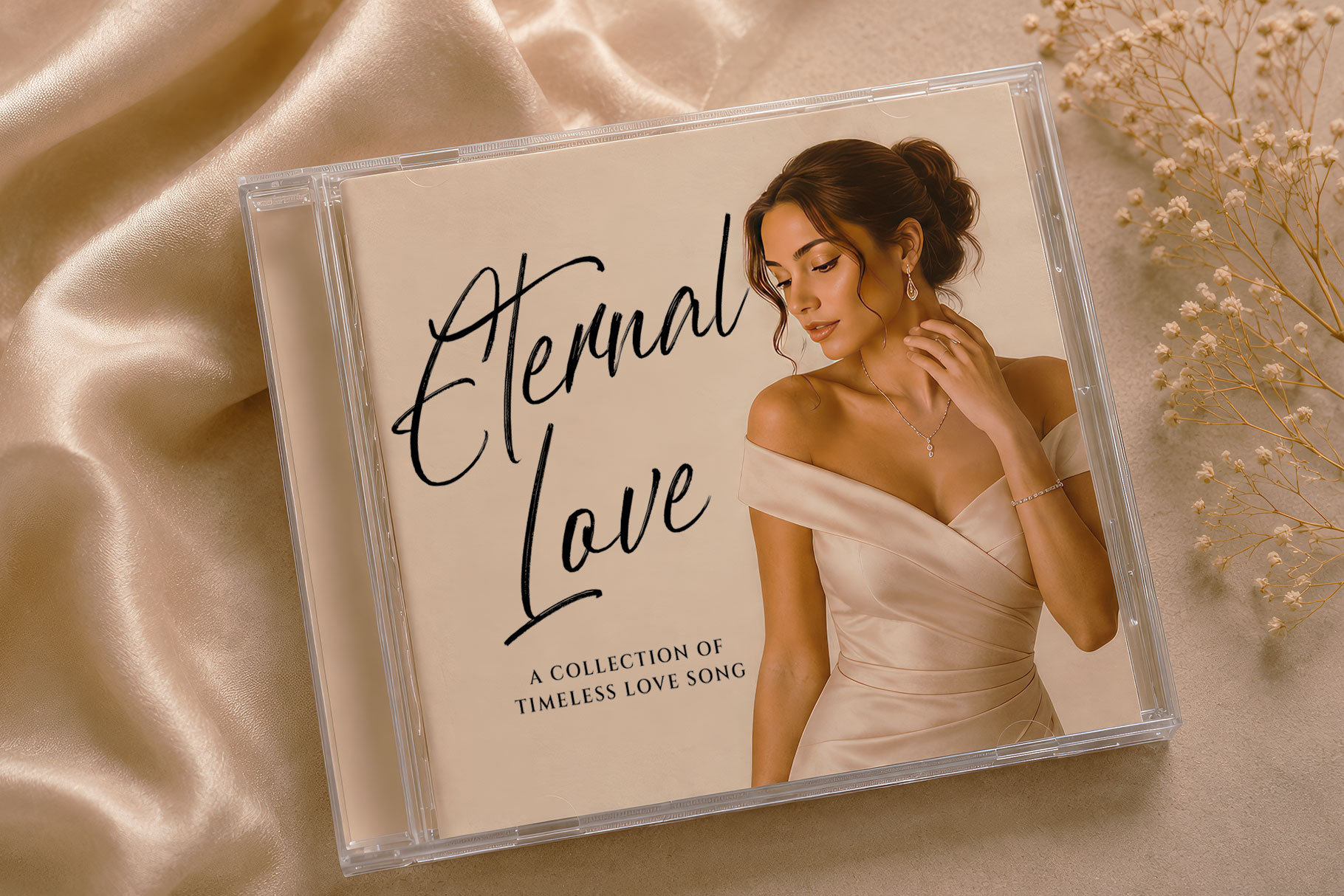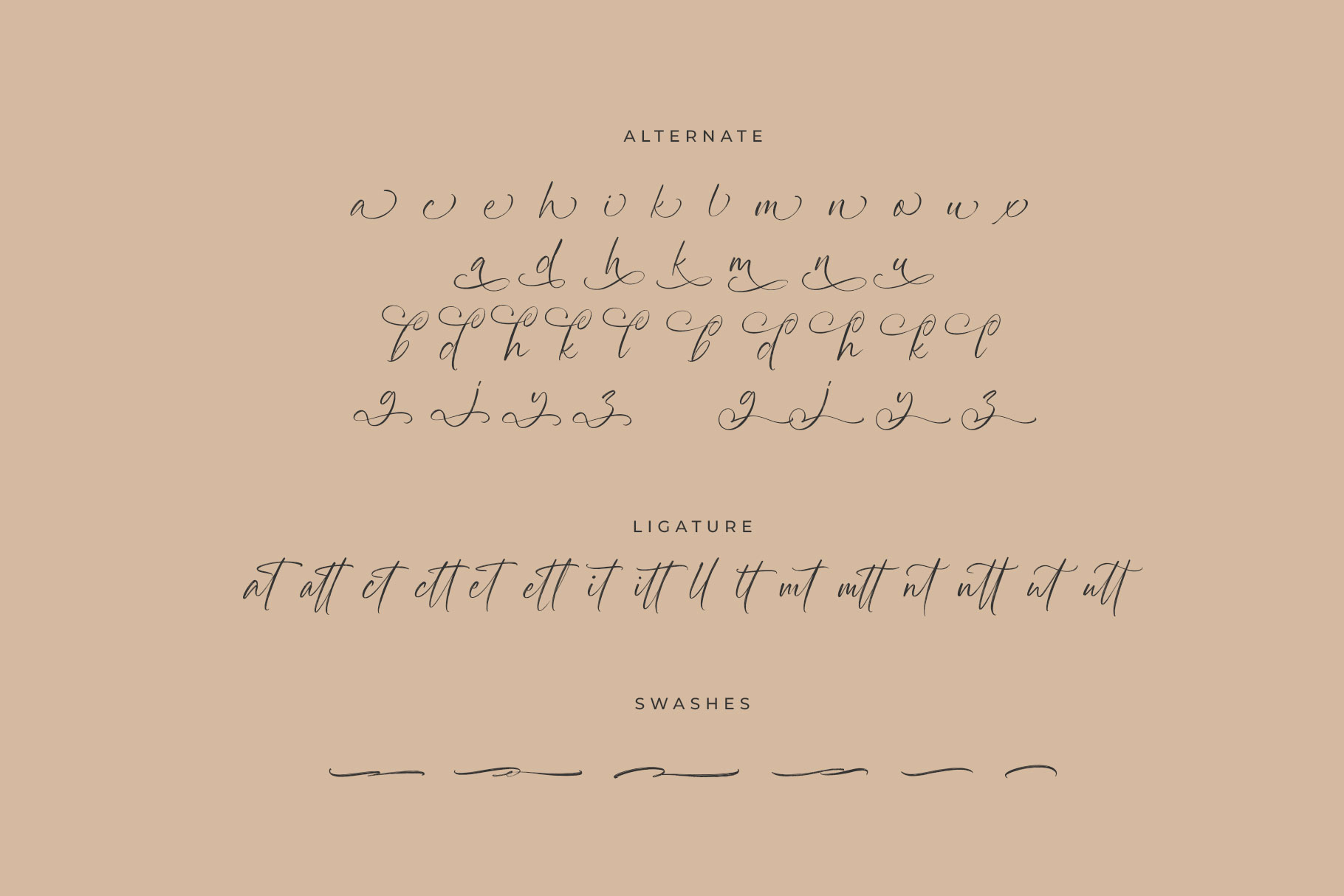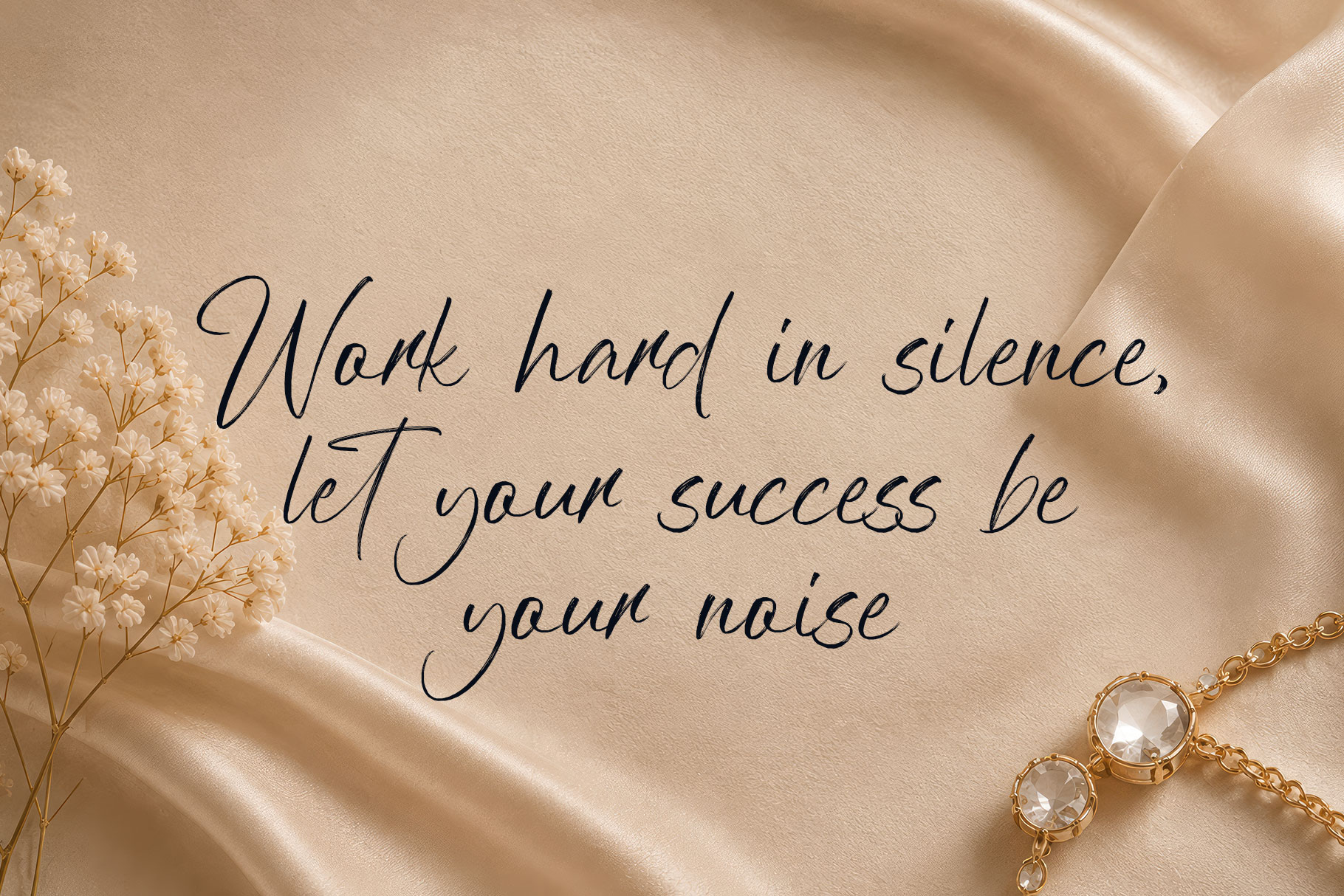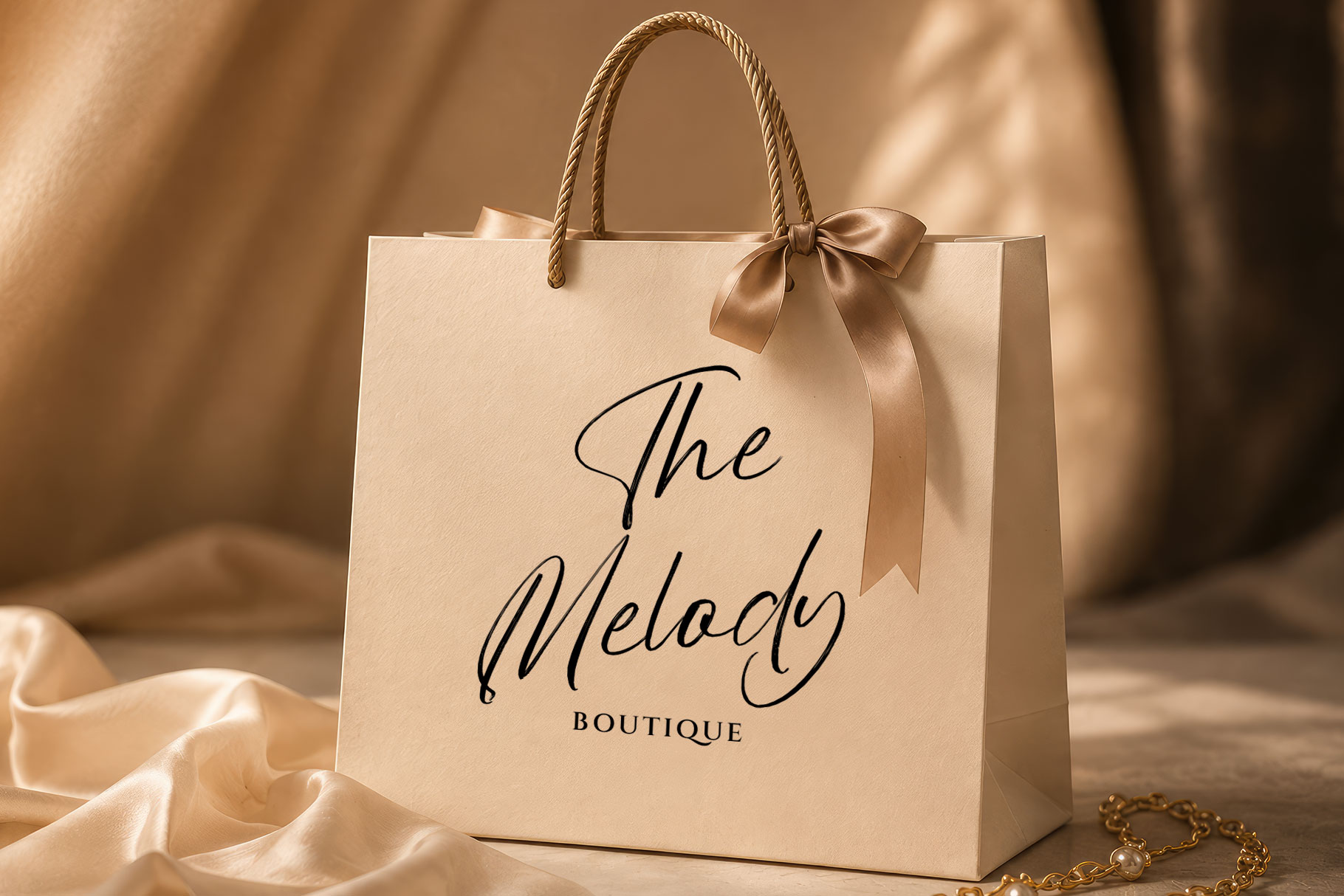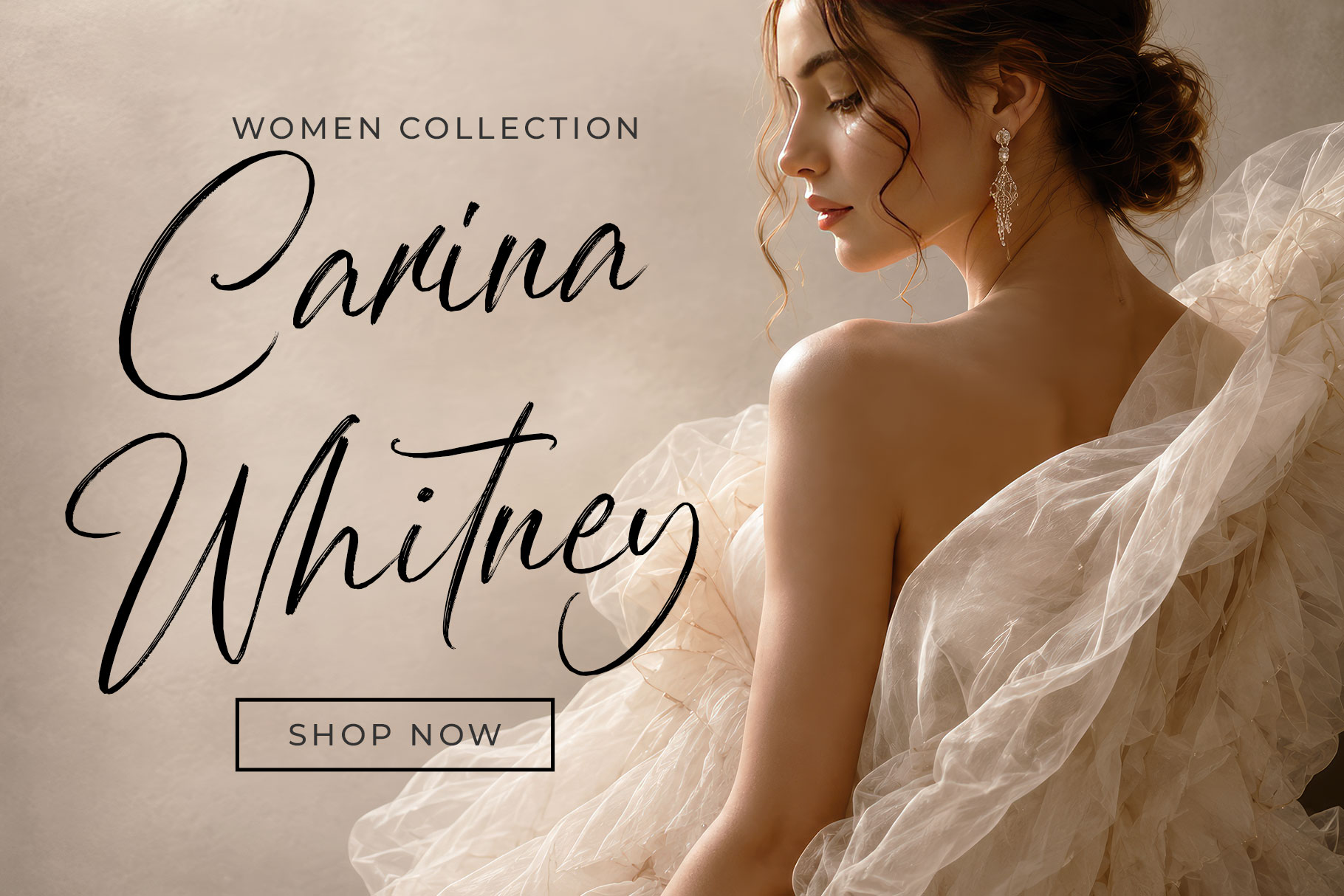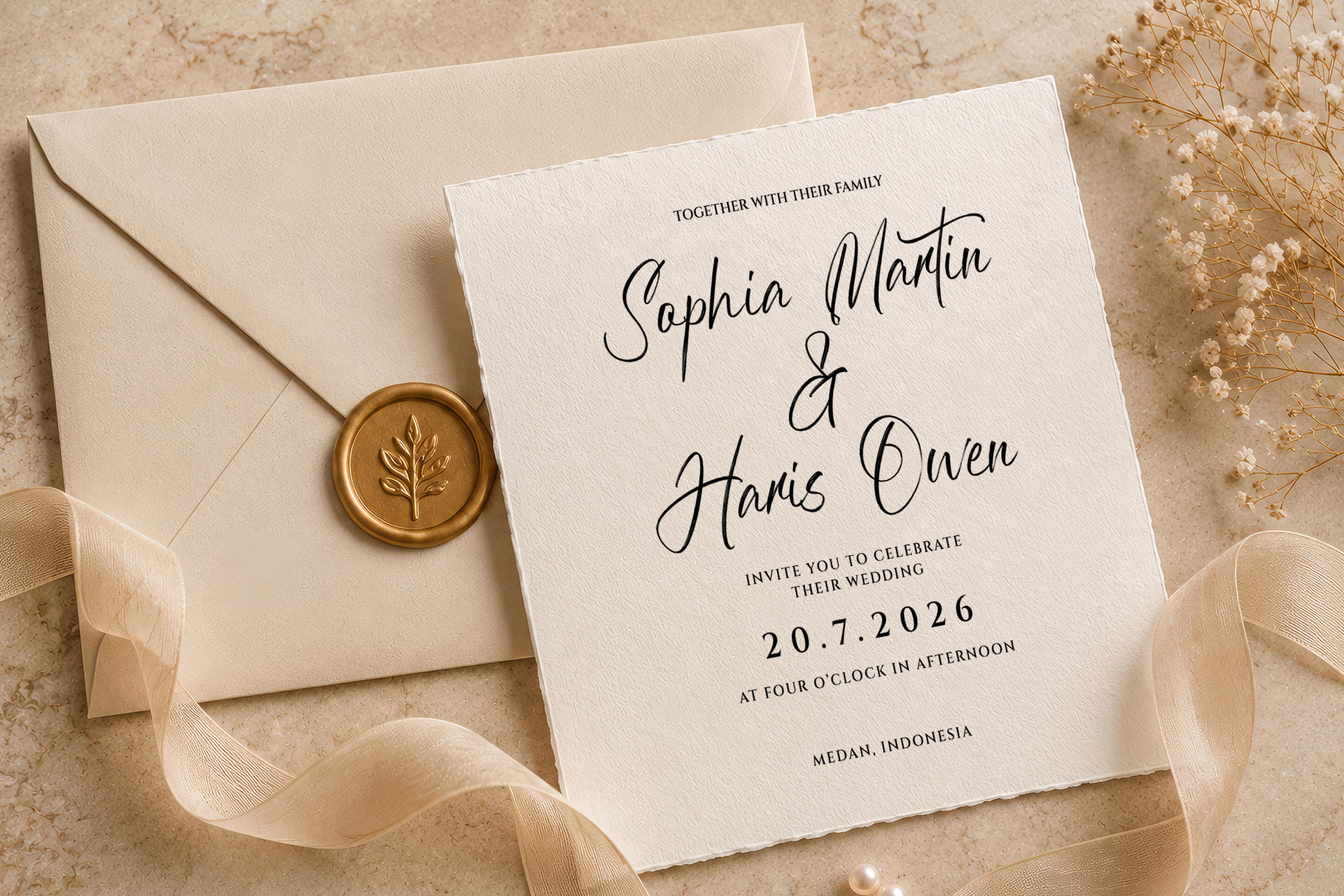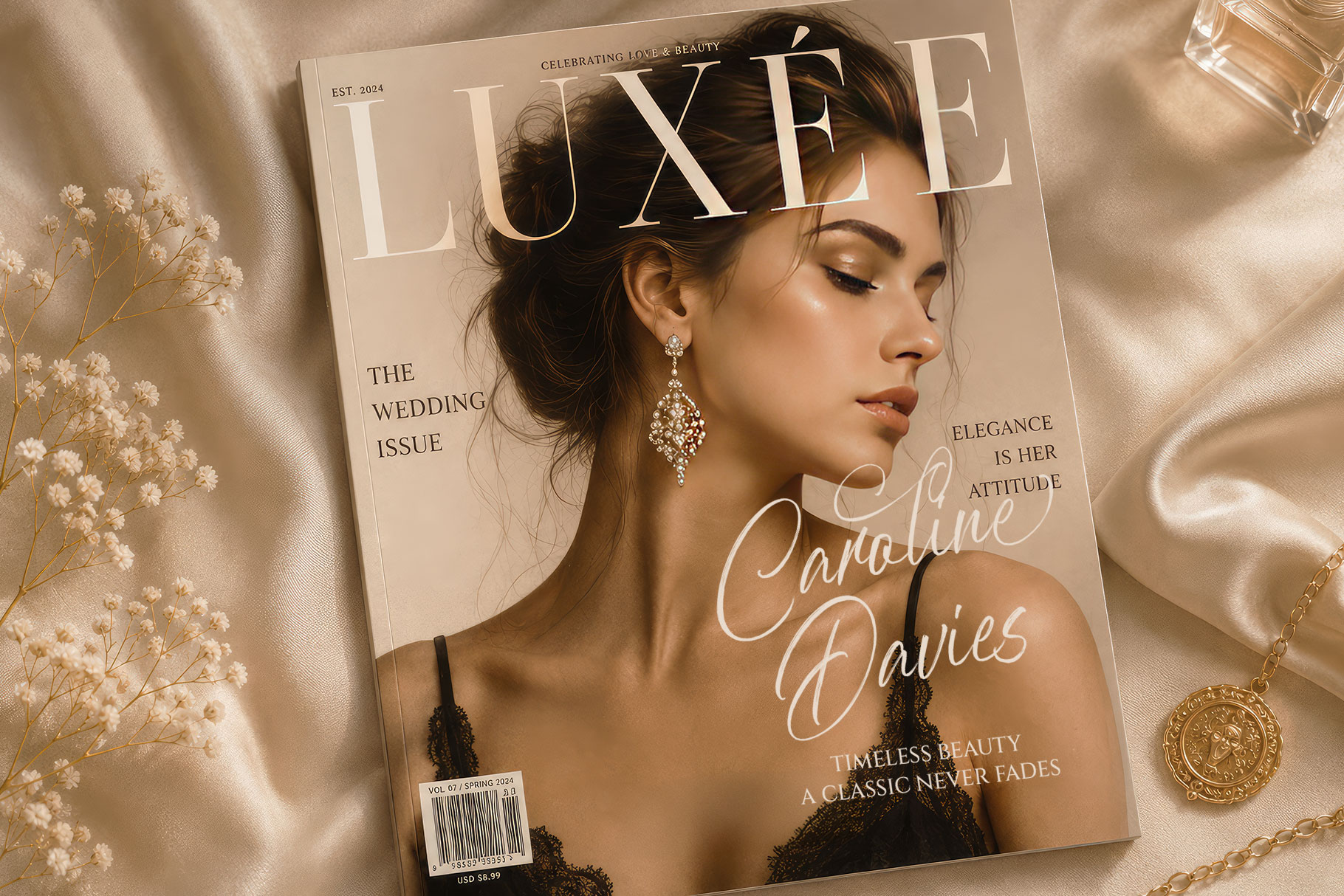
Remilna Britney is elegant script brush font beautifully captures the essence of modern sophistication with a handcrafted touch. Inspired by contemporary calligraphy and expressive brush lettering, this script font embodies creativity, femininity, and timeless beauty. Remilna Britneyis a perfectly choice for any creative endeavor, creating, modern, lifestyle design such as logotype, title, cover, branding, invitations, wedding designs, display and magazine, social media posts, advertisements, printed quotes, product packaging, corporate brand, product designs, labels, photography, watermarks, special events and any other project with elegant touch.